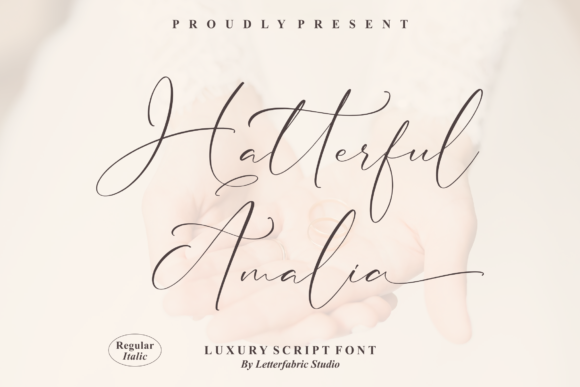
Prepare yourself to be captivated by Hatterful Amalia, the epitome of grace and elegance in the realm of script fonts. Its meticulously crafted glyphs dance across the page like a symphony of flowing ink, leaving a trail of visual enchantment.
Step into a world of creative possibilities with Hatterful Amalia, the perfect font for fashionistas, branding mavens, and design enthusiasts alike. It effortlessly elevates logos, branding projects, labels, photography, watermarks, and special events, adding a touch of sophistication that commands attention.
Hatterful Amalia's versatility knows no bounds, making it the ultimate choice for creative expression. Let your imagination run wild as you weave enchanting stories through wedding invitations, heartfelt letters, and captivating social media posts. Its PUA encoding ensures seamless access to all the glyphs and swashes, empowering you to unleash your creativity without limits.
With Hatterful Amalia, every project becomes an artistic masterpiece, a testament to your impeccable taste and design prowess. Experience the joy of crafting designs that resonate with your audience, leaving an indelible mark on their hearts and minds. Embrace the beauty of Hatterful Amalia, and unlock the boundless potential of your creative vision.